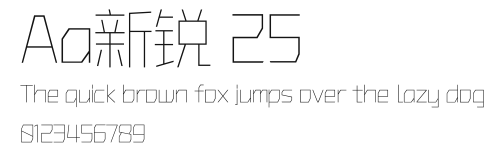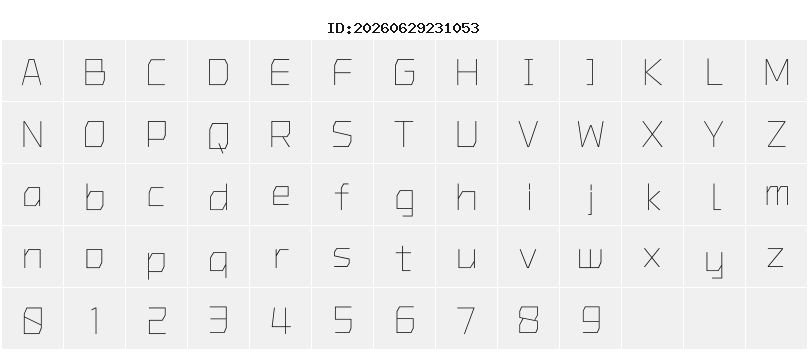
Aa新锐 25 Preview
• Font Name: Aa新锐 25
• Font ID: AaXinRui-25 Version 1.00.00
• Full Font Name: Aa新锐 25
• Version: Version 1.00.00
• PostScript Name: AaXinRui-25
• Character Count: 7909
• Manufacturer: 翰美互通
About Aa新锐 25.ttf
Aa新锐 25.ttf is a modern, elegant sans-serif font designed for ultimate readability and visual harmony. Perfect for branding, headlines, web design, and print materials.